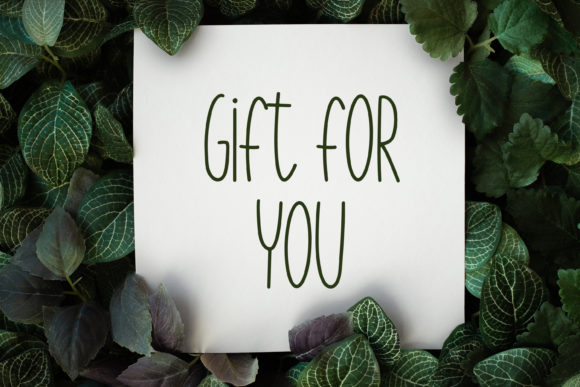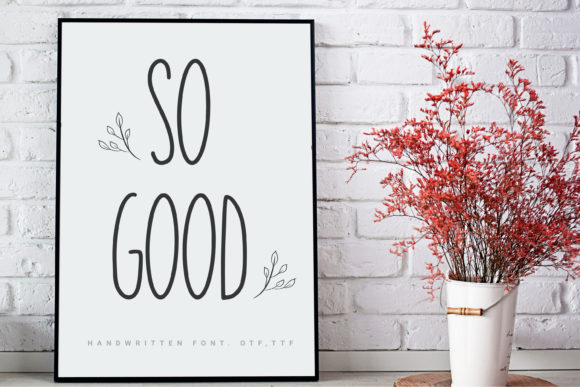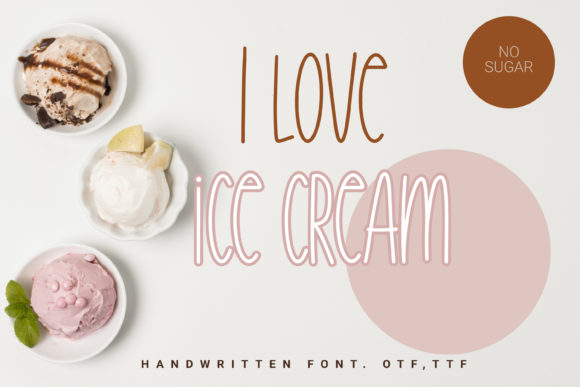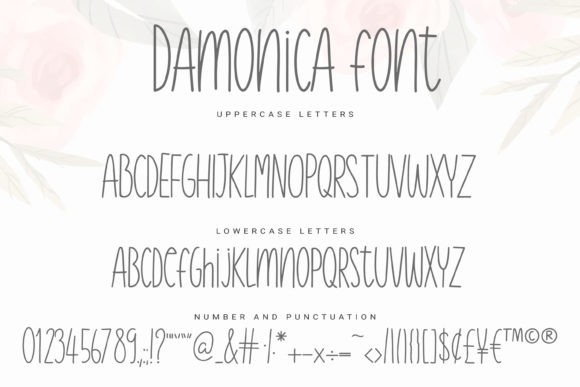
Damonica Font: The Perfect Addition to Your Design Projects
Are you looking for a font that can add a touch of personality to your design projects? Look no further than Damonica, a cute and quirky handwritten font that’s incredibly versatile. With its friendly style, Damonica is the perfect fit for a wide variety of design projects that you envision to create.
What Makes Damonica Special?
Damonica is more than just a font – it’s a way to add a personal touch to your designs. Its unique, handwritten style gives it a charm that’s hard to resist. Whether you’re working on a branding project, a website, or a craft project, Damonica is sure to make your design stand out.
One of the best things about Damonica is its versatility. This font can be used for a wide range of design projects, from:
- Branding: Use Damonica to create a unique and memorable brand identity that sets you apart from the competition.
- Web Design: Add a touch of personality to your website with Damonica, perfect for headings, titles, and more.
- Crafting: Use Damonica to create custom signs, labels, and other craft projects that showcase your personality.
- Social Media: Stand out on social media with Damonica, perfect for creating eye-catching graphics and posts.
Why Choose Damonica?
So why choose Damonica over other fonts? Here are just a few reasons:
- Unique Style: Damonica’s handwritten style is truly one-of-a-kind, giving your designs a personal touch that’s hard to replicate.
- Ease of Use: Damonica is incredibly easy to use, even for those who are new to design.
- Flexibility: Whether you’re working on a digital project or a print project, Damonica is the perfect choice.
Tips for Using Damonica
Here are a few tips for getting the most out of Damonica:
- Experiment with Sizes: Don’t be afraid to experiment with different sizes and styles to find the perfect fit for your project.
- Pair with Other Fonts: Try pairing Damonica with other fonts to create a unique and eye-catching design.
- Use on Different Backgrounds: Don’t be afraid to try Damonica on different backgrounds to see what works best.
In conclusion, Damonica is a versatile and unique font that’s perfect for a wide range of design projects. With its friendly style and ease of use, Damonica is sure to become a go-to font in your design arsenal. So why wait? Download Damonica today and start adding a personal touch to your designs!